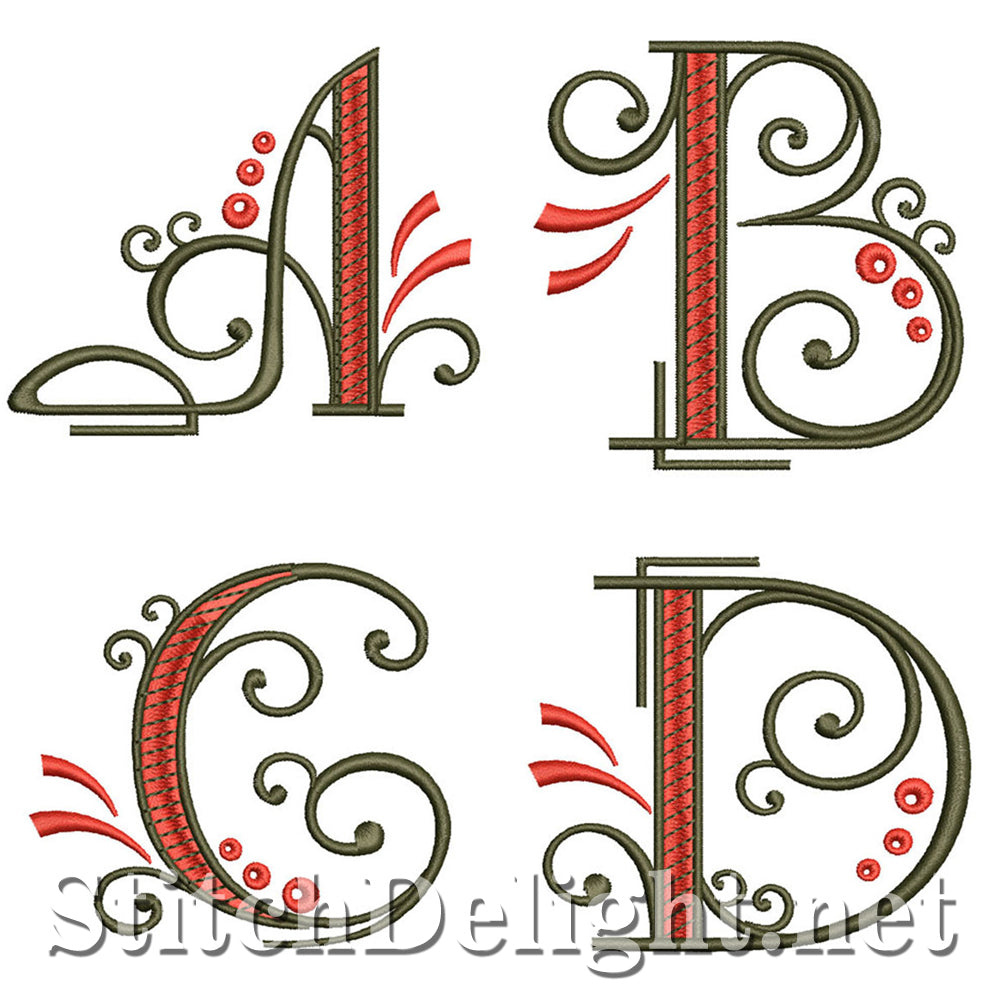
Beautiful block font for the 4x4 hoop - with fancy scrolls - Letter height is 3.15" - BX format Now Included - NOW includes the BX format for Embrilliance Essentials